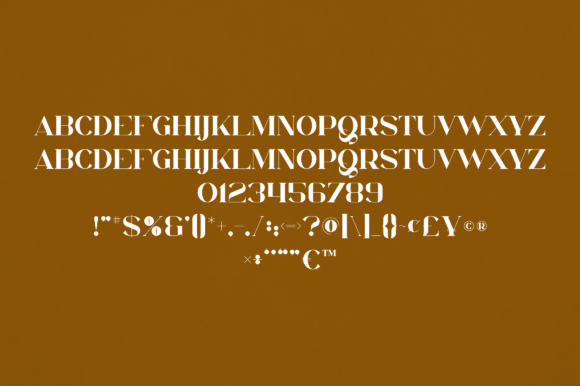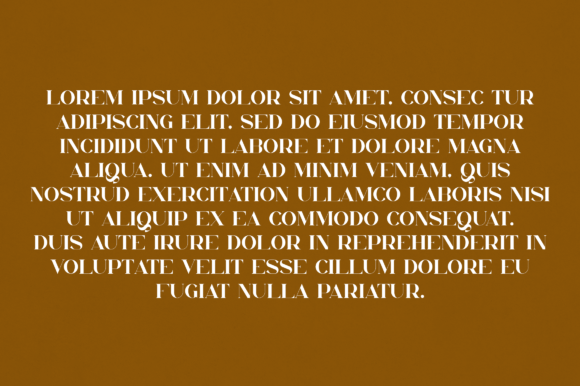
Introducing Chaya Font: Elevate Your Typography with Elegance and Versatility
In the world of design, typography plays a crucial role in conveying messages, expressing creativity, and making a lasting impression. For designers and crafters seeking to add a touch of sophistication and uniqueness to their projects, the Chaya font is an exceptional choice. This elegant and versatile font is designed to enchant every logo, branding, headline, or plain text, making it perfect for a wide range of applications.
What Makes Chaya Font Stand Out?
Chaya is not just another font; it’s a design statement. Its elegant curves and versatile nature make it suitable for various design projects, from luxury branding to casual crafts. Here are some key features that make Chaya a standout:
- Elegant and Sophisticated: Chaya boasts a refined and sophisticated look that instantly elevates the aesthetic of any project. Its elegant curves and lines make it perfect for designs that require a touch of luxury and class.
- Versatile: Whether you’re working on a logo, product packaging, magazine headers, or simply adding a stylish text overlay to a background image, Chaya adapts seamlessly. Its versatility means you can use it across different mediums and projects.
- Unique Typography: In a sea of commonly used fonts, Chaya offers a breath of fresh air. Its unique design ensures that your typography stands out, making your project memorable and distinctive.
Chaya’s adaptability and aesthetic appeal make it an ideal choice for a multitude of design projects. Here are some of the areas where Chaya truly shines:
- Branding Projects: Create a lasting impression with a unique and elegant font that reflects your brand’s personality. Chaya can help you establish a sophisticated brand image that resonates with your target audience.
- Home-Ware Designs: Add a touch of elegance to your home-ware designs, making them stand out in a crowded market. Chaya’s versatility ensures it works well on various materials and products.
- Product Packaging: Elevate your product packaging with a font that exudes quality and sophistication. Chaya can help make your products more appealing to potential customers.
- Magazine Headers: Create eye-catching magazine headers that draw readers in. Chaya’s elegant design makes it perfect for headlines and titles that need to make an impact.
- Text Overlays: For designers looking to add a stylish text overlay to a background image, Chaya provides a sophisticated solution. Its elegant curves and lines ensure the text complements the image without overpowering it.
Why Choose Chaya Font?
With so many fonts available, why should you choose Chaya for your next project? Here are a few compelling reasons:
- Uniqueness: Chaya offers a unique design that sets it apart from more traditional fonts. Choosing Chaya means you’re opting for a font that will make your project stand out.
- Quality: Designed with high-quality in mind, Chaya ensures that your project looks professional and polished.
- Ease of Use: Despite its sophisticated look, Chaya is easy to use and works well across different platforms and applications.
Chaya font is a game-changer for designers and crafters looking to add a touch of elegance and uniqueness to their projects. Its versatile nature, combined with its sophisticated design, makes it an excellent choice for a wide range of applications. Whether you’re working on branding projects, home-ware designs, product packaging, or simply looking for a stylish text overlay, Chaya is sure to exceed your expectations. Elevate your typography and make your projects truly unique with the enchanting Chaya font.